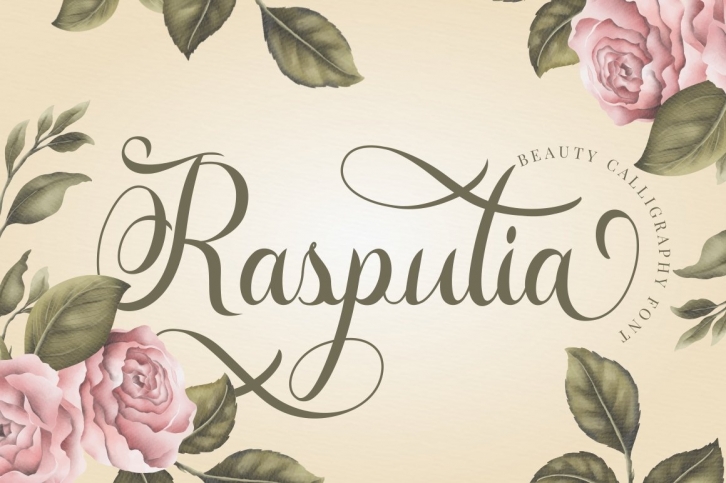
Rasputia is a trendy and unique font with an authentic style. It was designed by PutraCetol Studio and it's a great choice for creative people who need such a font. It was released on March 18, 2020 and the file size is 11.82 MB. Rasputia will add an organic vibe to any design idea!